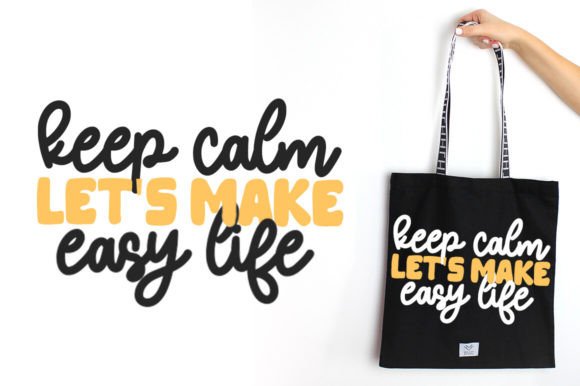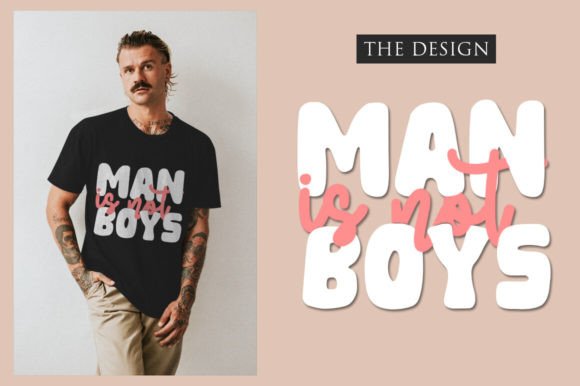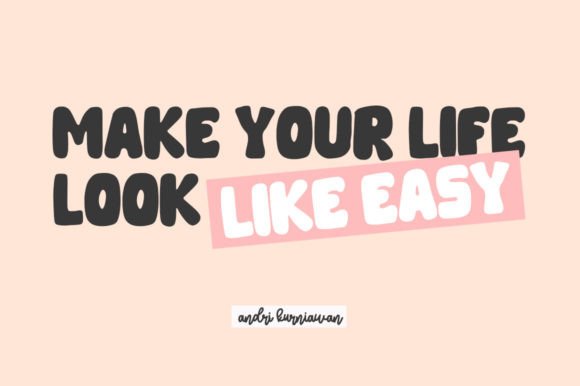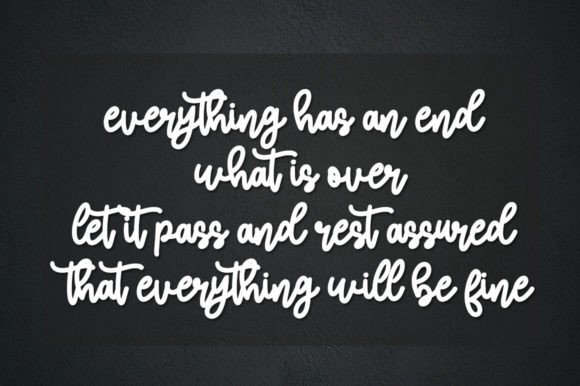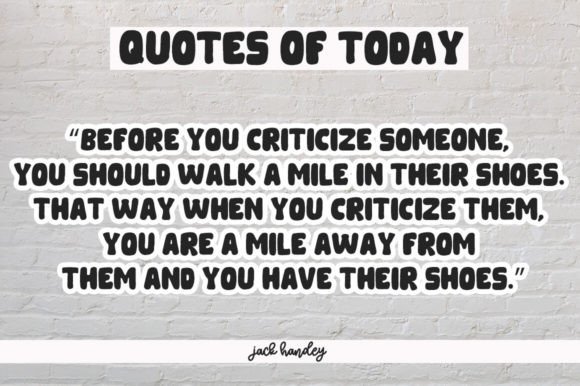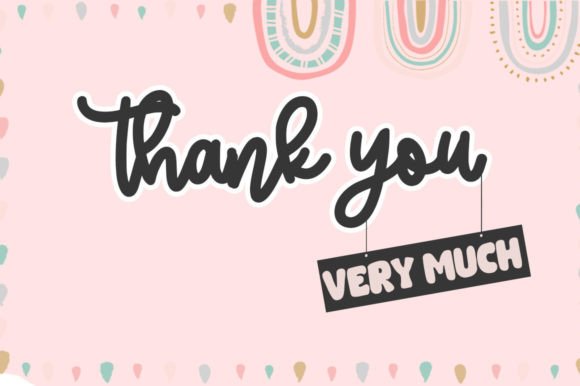
Smile Child Very Good Font – Free Download
Introduction to Smile Child Very Good Font
Smile Child Very Good – is a Duo Handwritten and petite (handwritten and modern look) Font Duo, featuring a sweet and gentle look.
This original look will appeal to a variety of crafty ideas, from letterhead and titles to writing implements .
Key Features of Smile Child Very Good Font